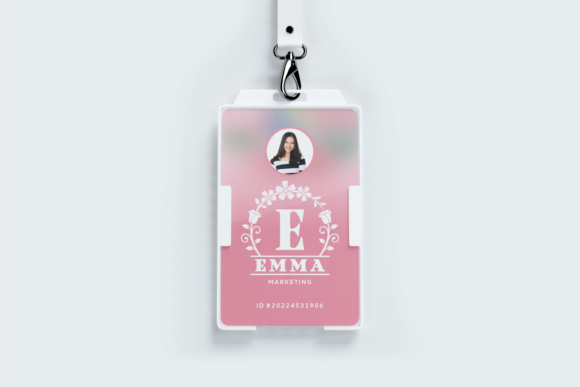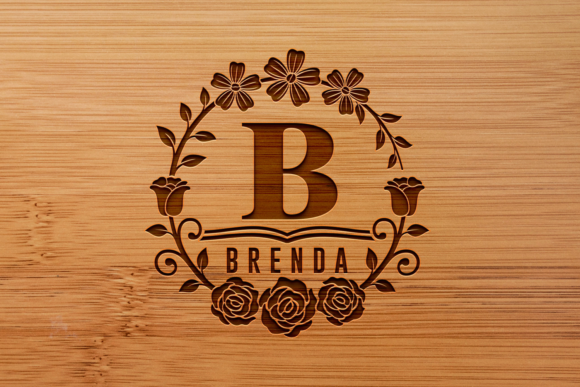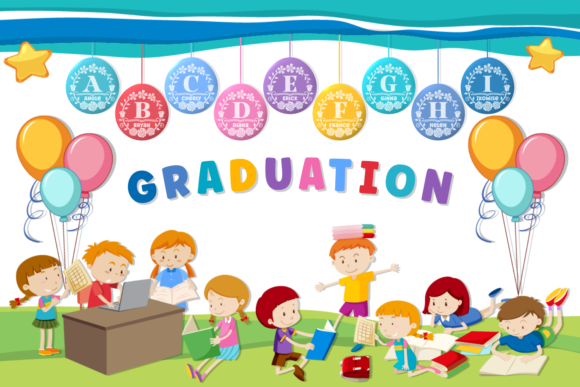
Introduction to Novelty Font
Have you ever stumbled upon a font that makes your creative project stand out from the crowd? For many designers, it’s that one ‘aha’ moment when everything falls into place, and the design comes alive. I’m sure you’ve had that moment too, where a particular font sparks an idea and takes your project to the next level.
For those who are always on the lookout for that perfect font, I’m excited to introduce you to the ‘Novelty Font’, a stunning decorative font that’s sure to captivate your audience. With its elegant style and high-quality design, it’s a valuable resource for designers who want to elevate their creative projects.
Key Features of Novelty Font
- High-quality design resource ideal for creative projects, offering a unique and eye-catching look.
- Novelty Font is designed to be highly customizable, with a wide range of styling options available.
- Perfect for designers seeking a distinctive and creative element to elevate their design projects.
Honest Review: Novelty Font
I recently stumbled upon the Novelty Font, and I must say it’s a unique addition to any design project. As a designer, I’m always on the lookout for high-quality fonts that can elevate my work and make it stand out.
Here are some pros and cons of using the Novelty Font:
- ✨ High quality: The font is well-designed and crisp, making it perfect for use in creative projects that require attention to detail.
- ⚠️ Limited styles: While the font is unique, it’s only available in a limited number of styles, which may not be suitable for all design projects.
Overall, I’d give the Novelty Font 4 out of 5 stars. It’s a great resource for designers who want to add a touch of whimsy to their work, but may not be suitable for more complex or high-stakes projects.
How to Use Novelty Font
Novelty Font is a unique and versatile design resource ideal for creative projects. Its high-quality design and transparent background make it perfect for adding a touch of personality to your work.
Tips for Getting the Most Out of Novelty Font
Experiment with different font sizes, colors, and styles to achieve the desired effect.
Novelty Font is ideal for:
- Graphic design projects
- Marketing materials
- Any creative project requiring a unique touch